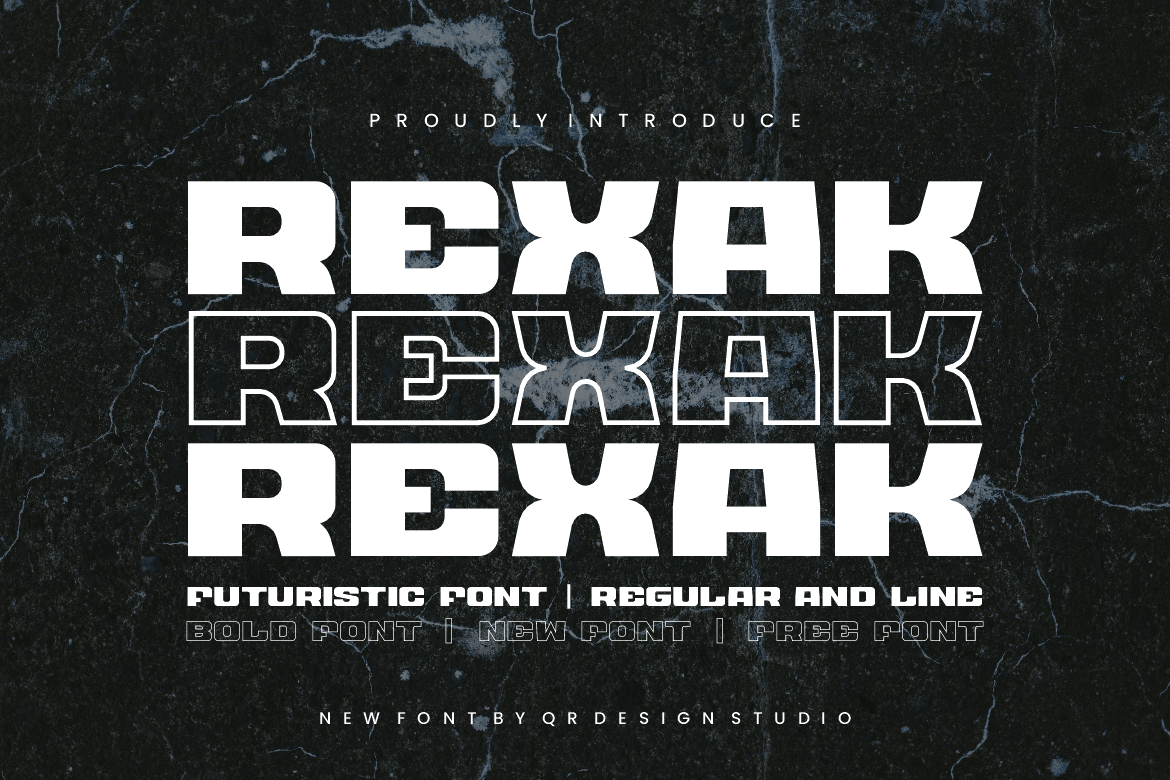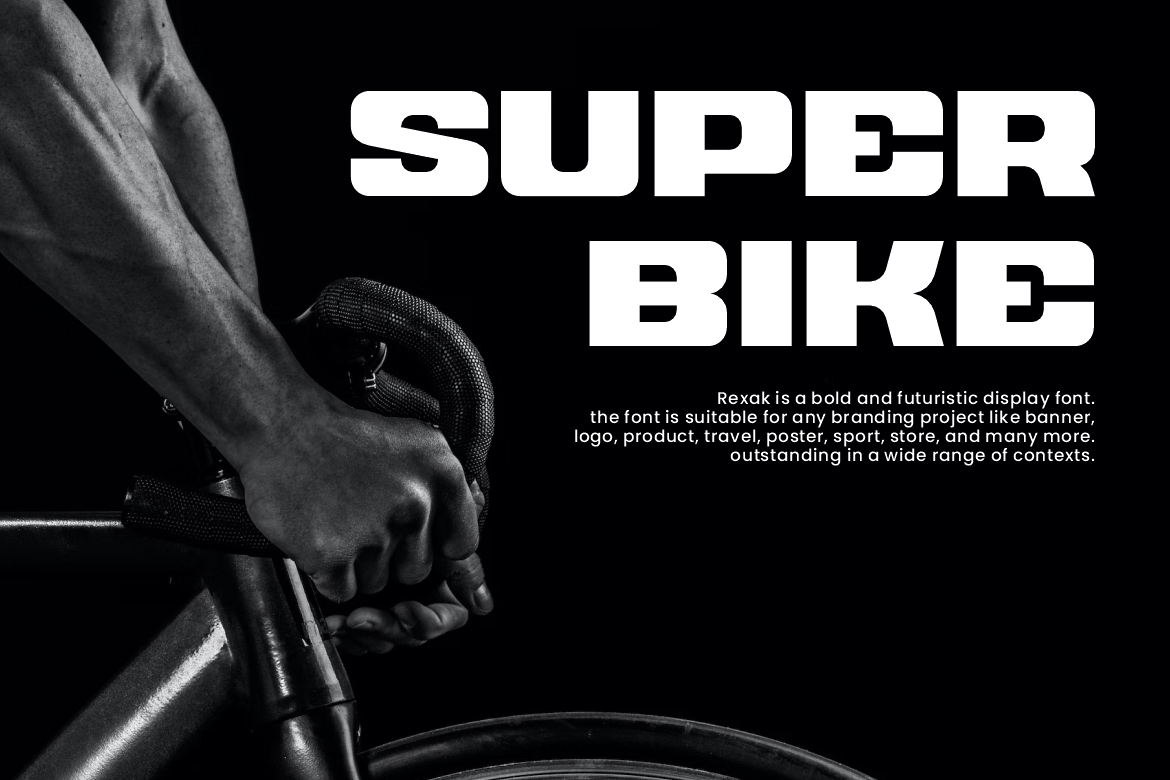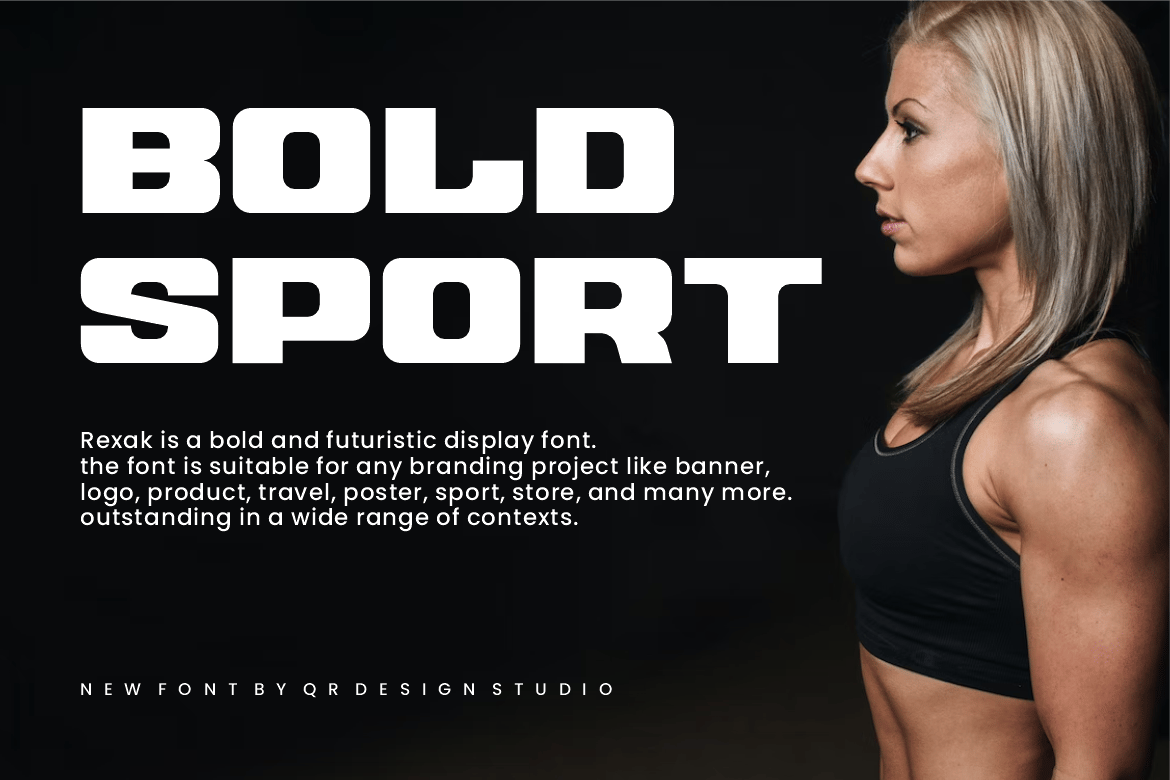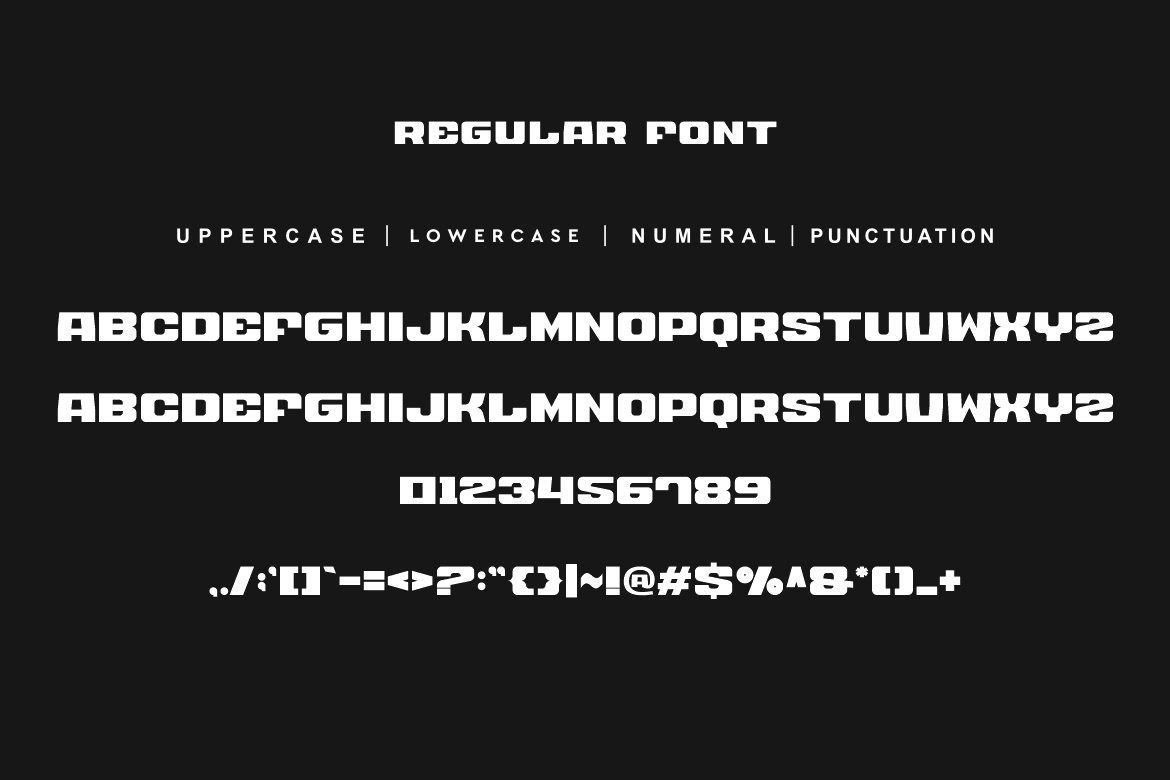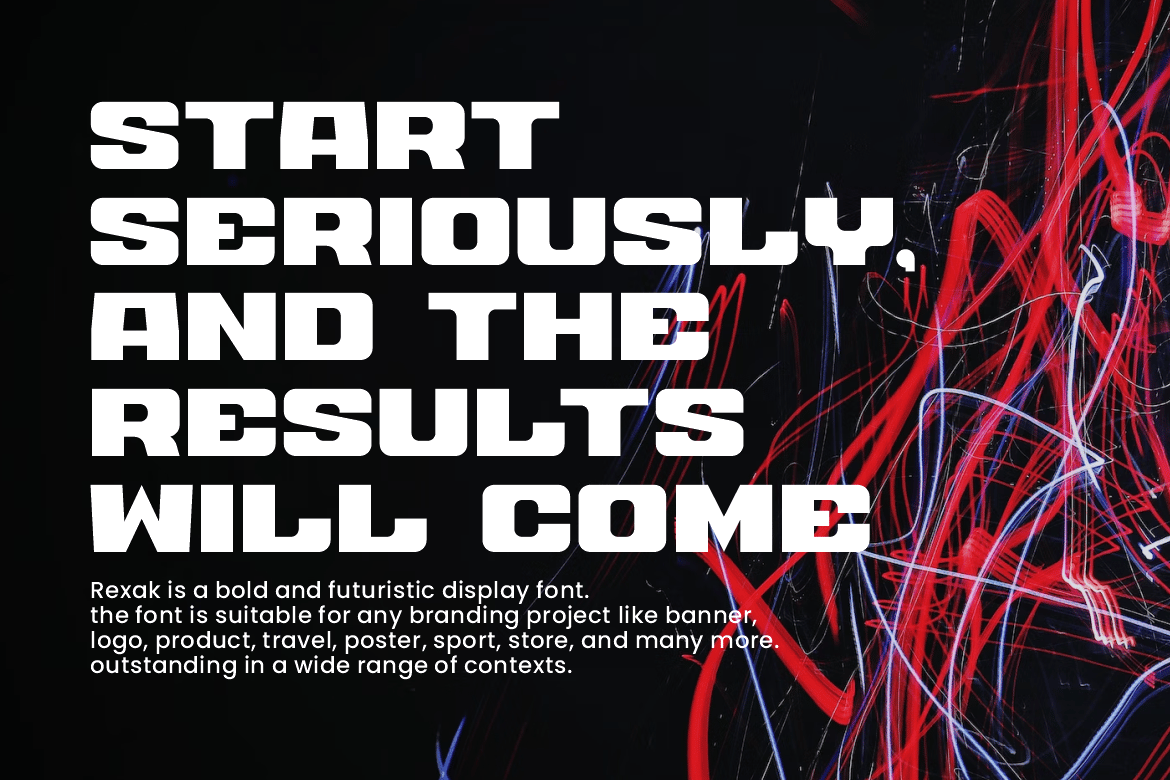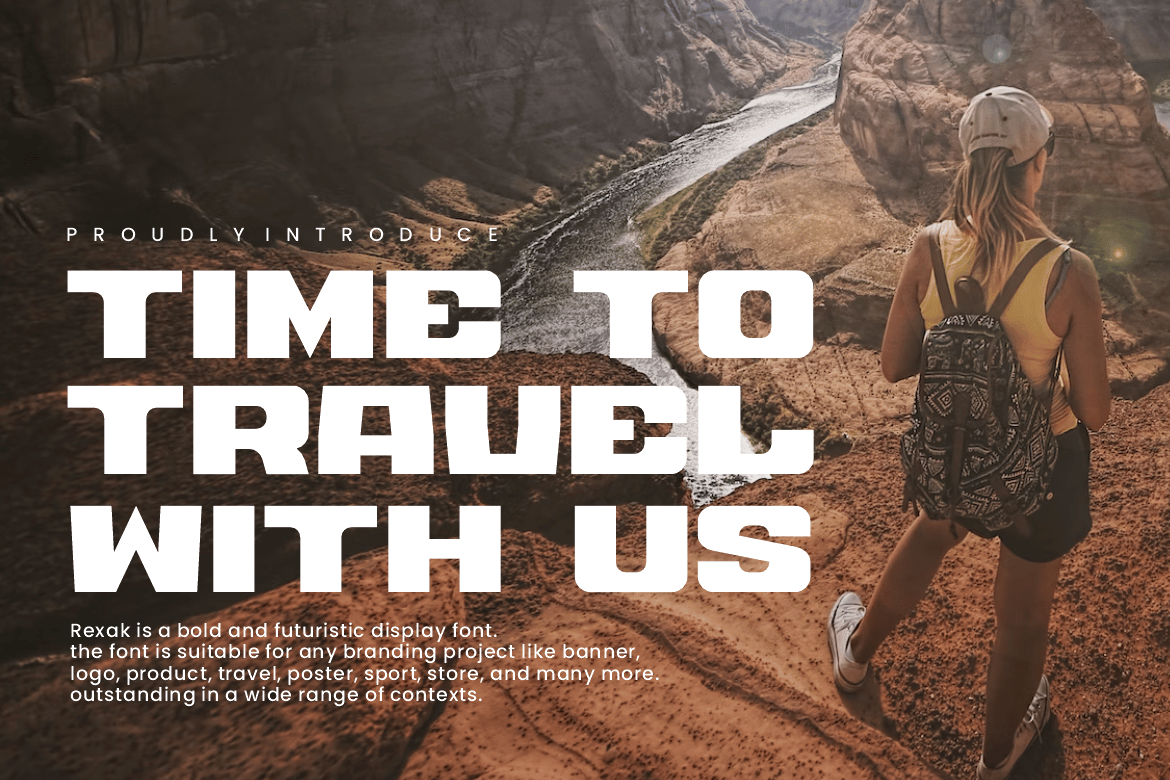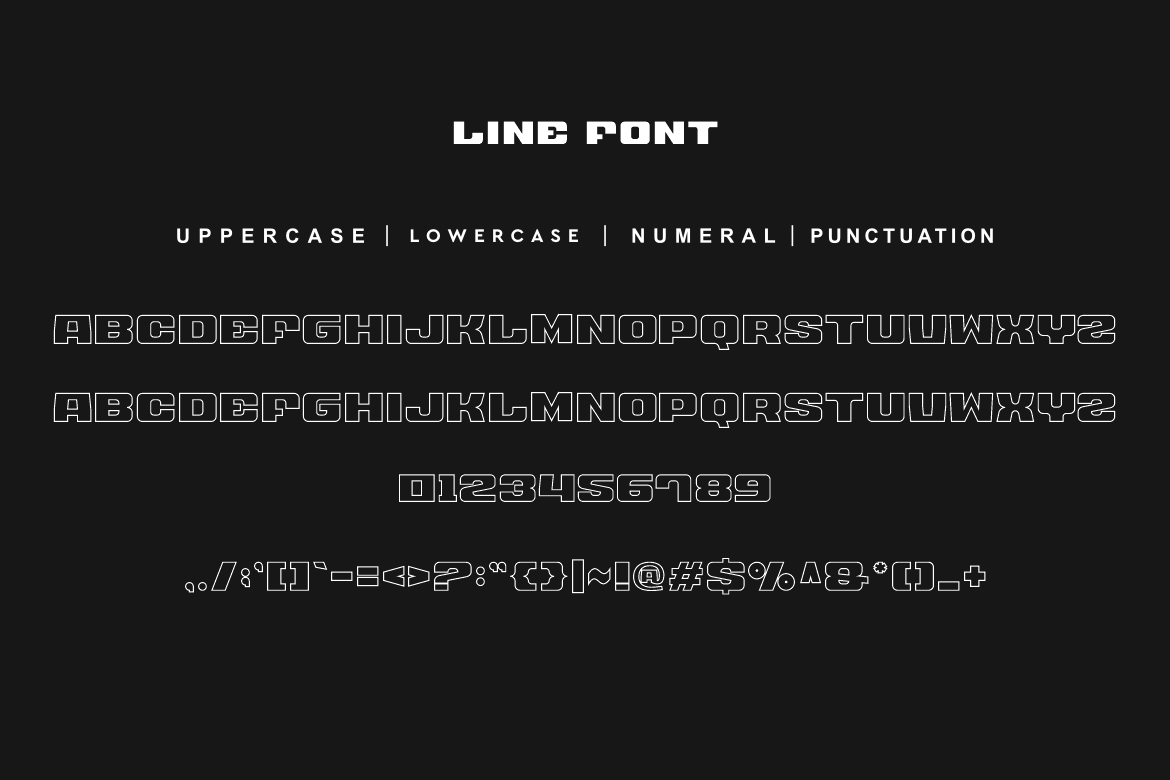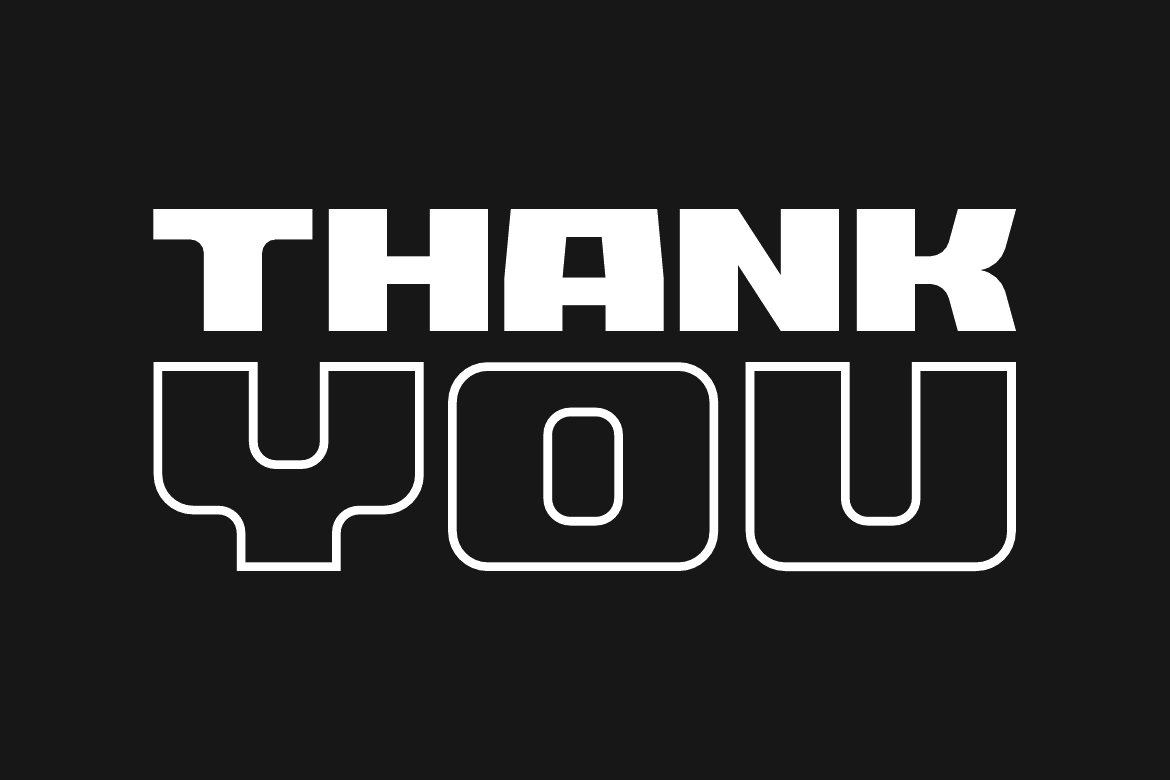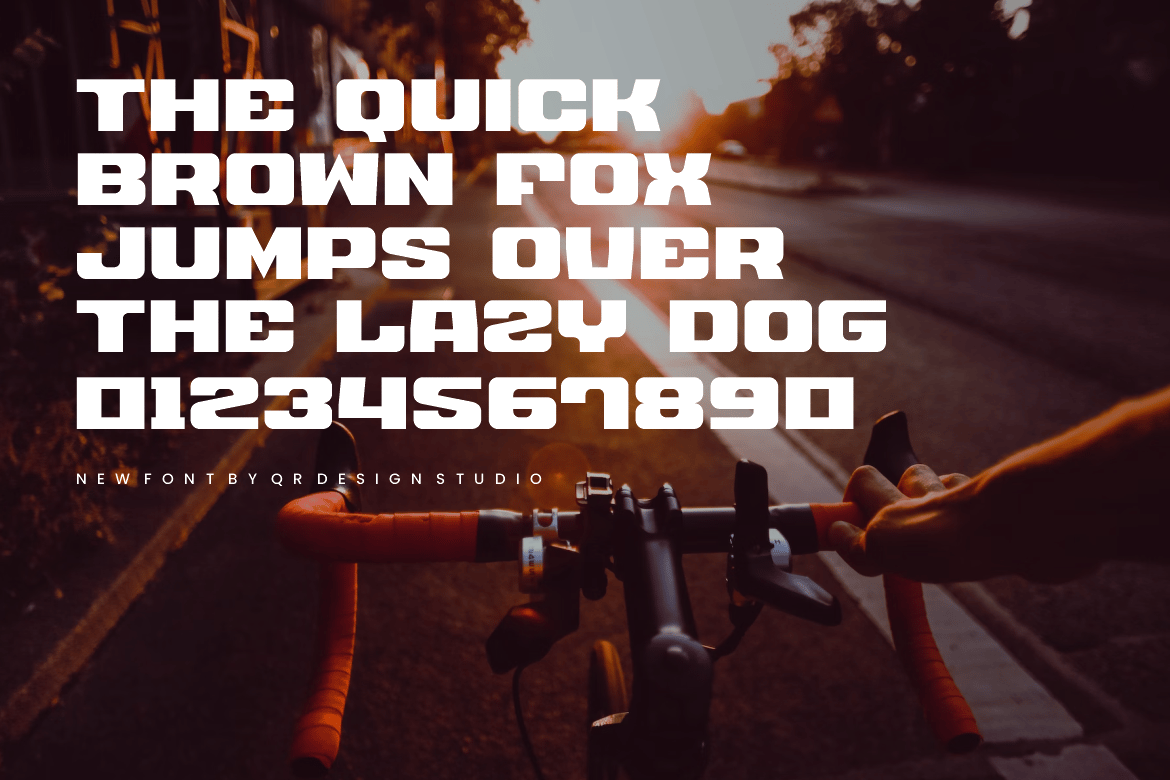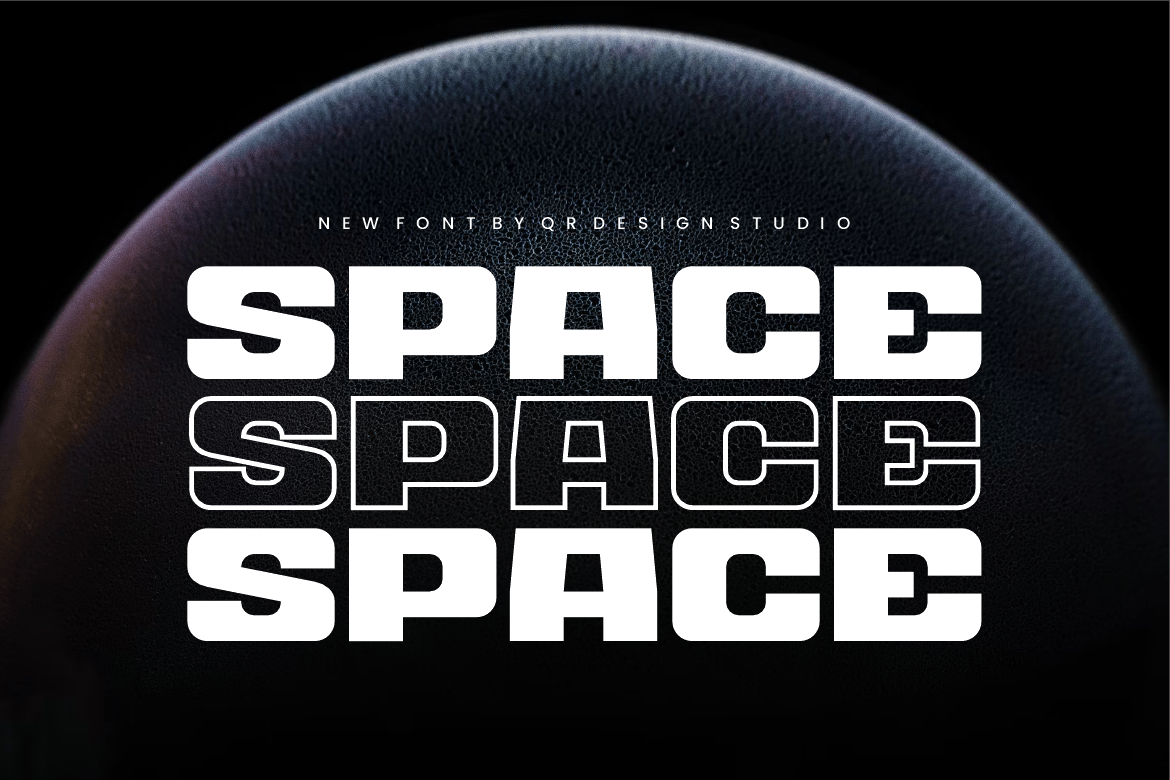
Rexak – Futuristic Font
Rexak – Futuristic Font is a bold and authentic display font.
The font is suitable for any branding project like logo, poster, sport, and many more.
Outstanding in a wide range of contexts.